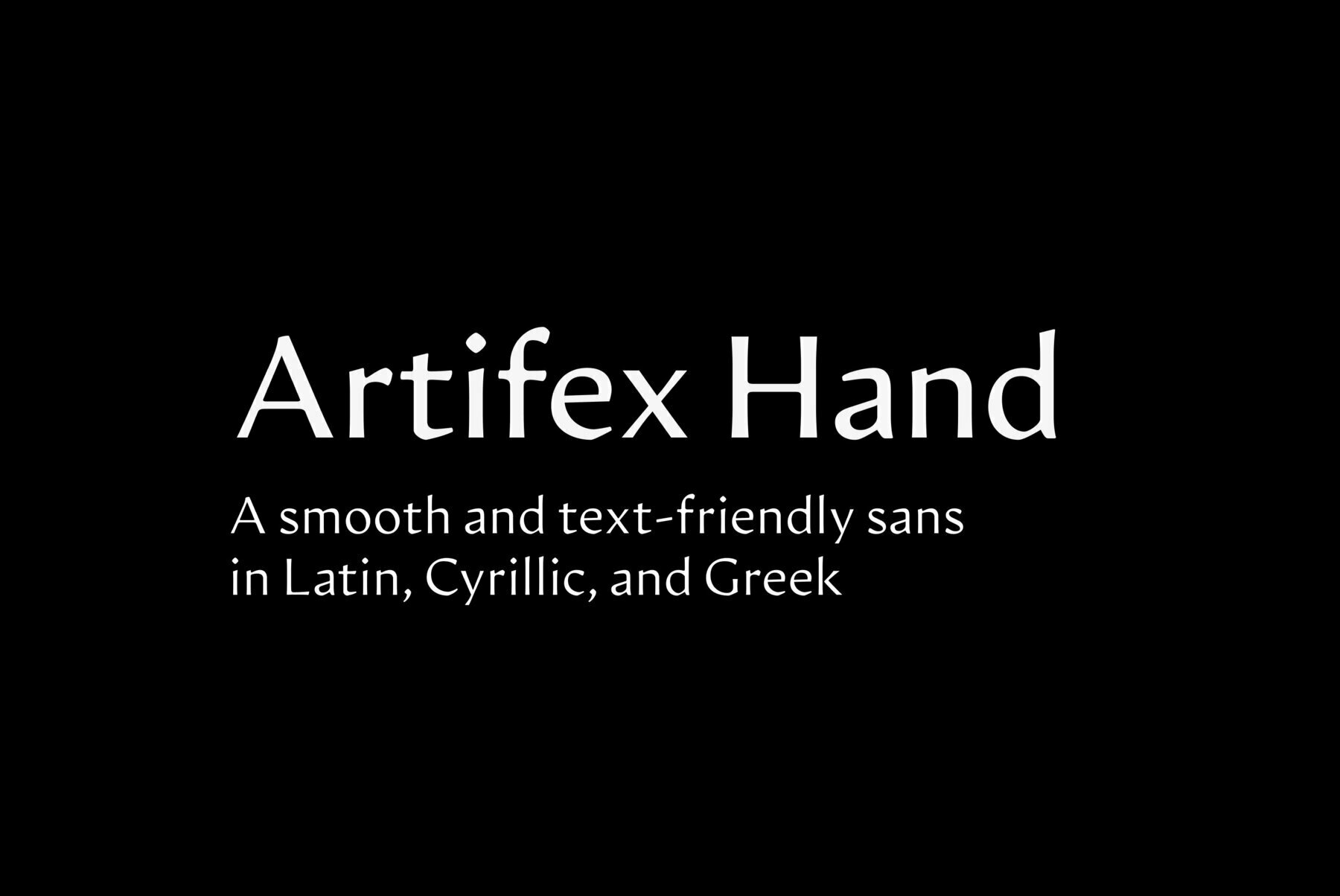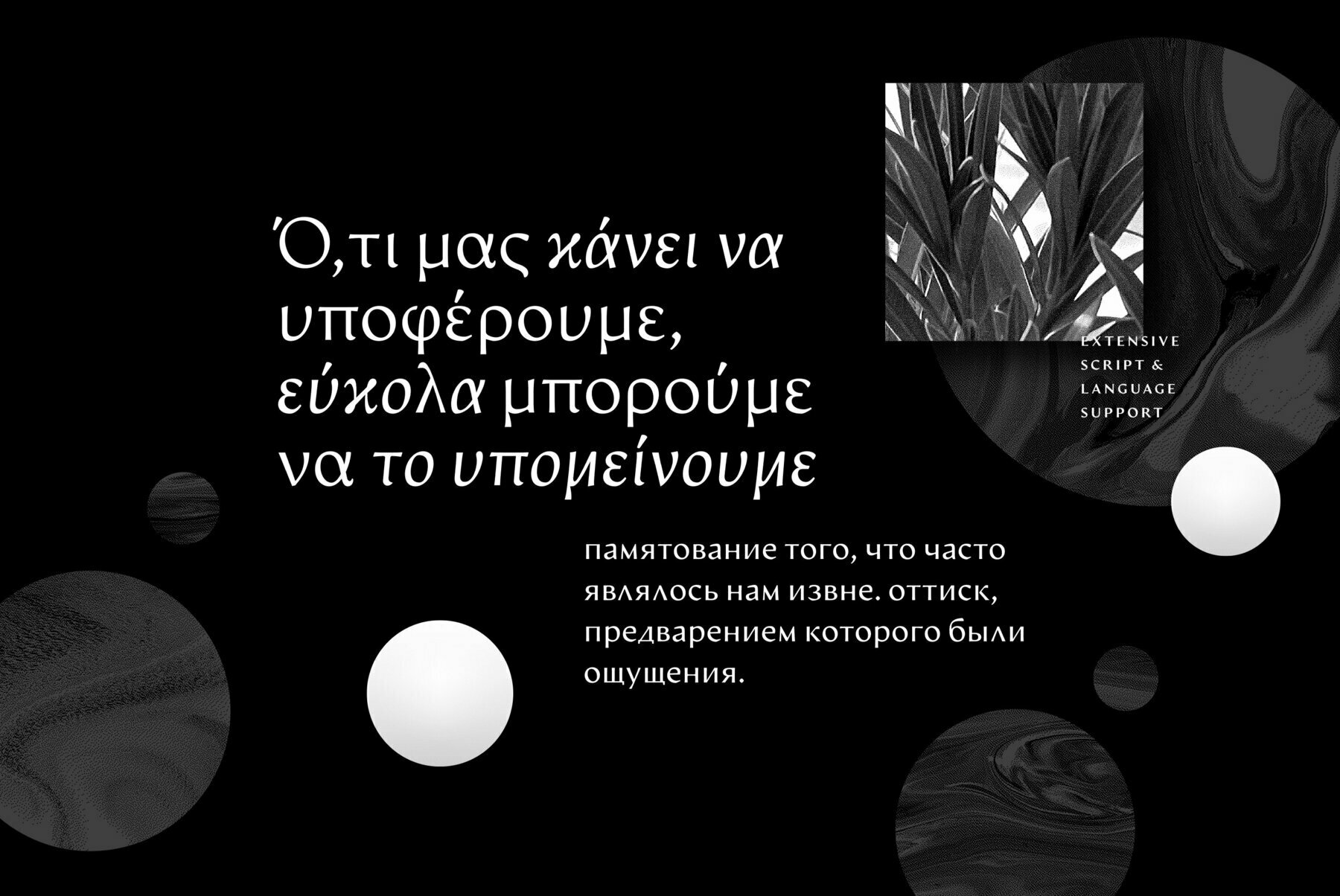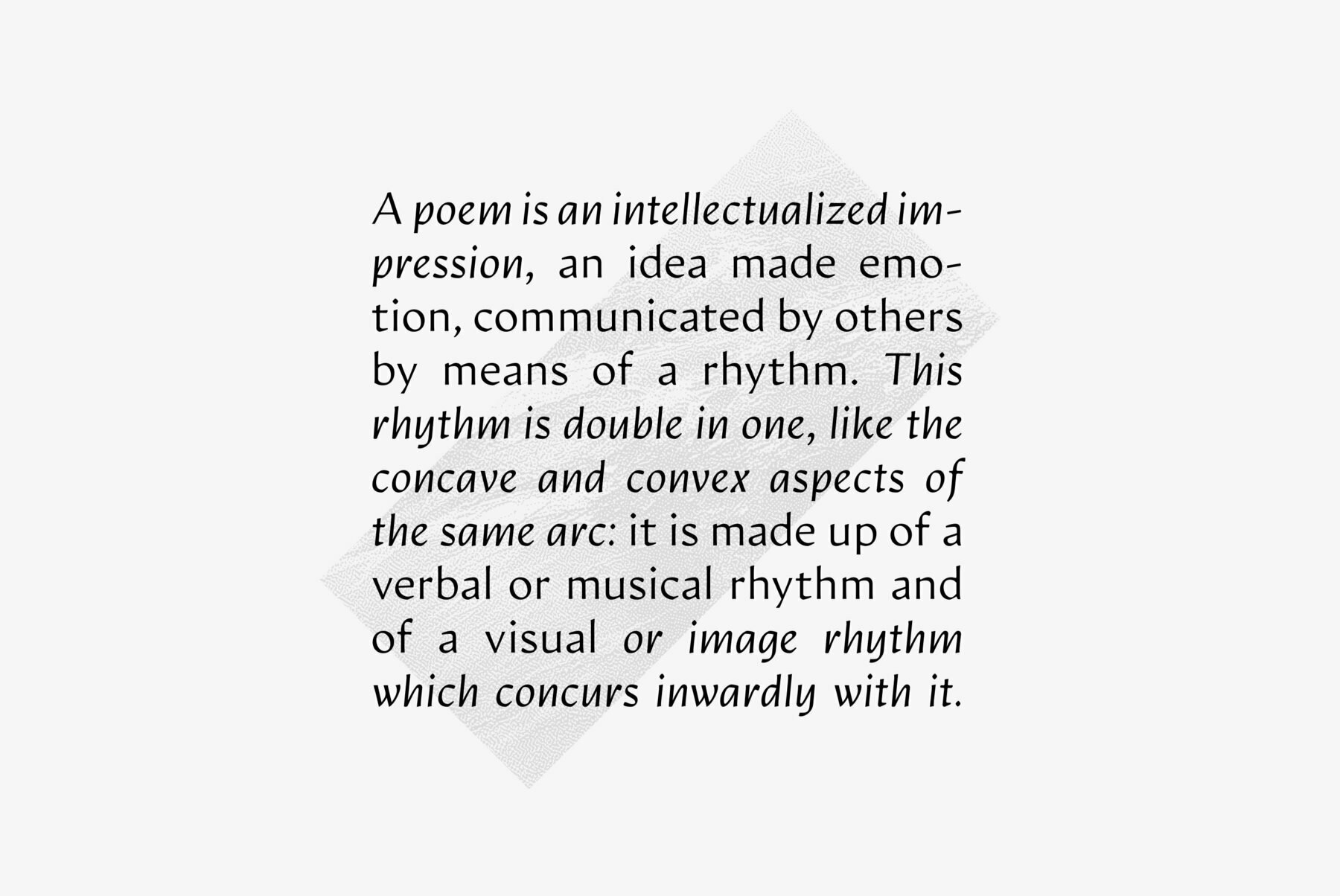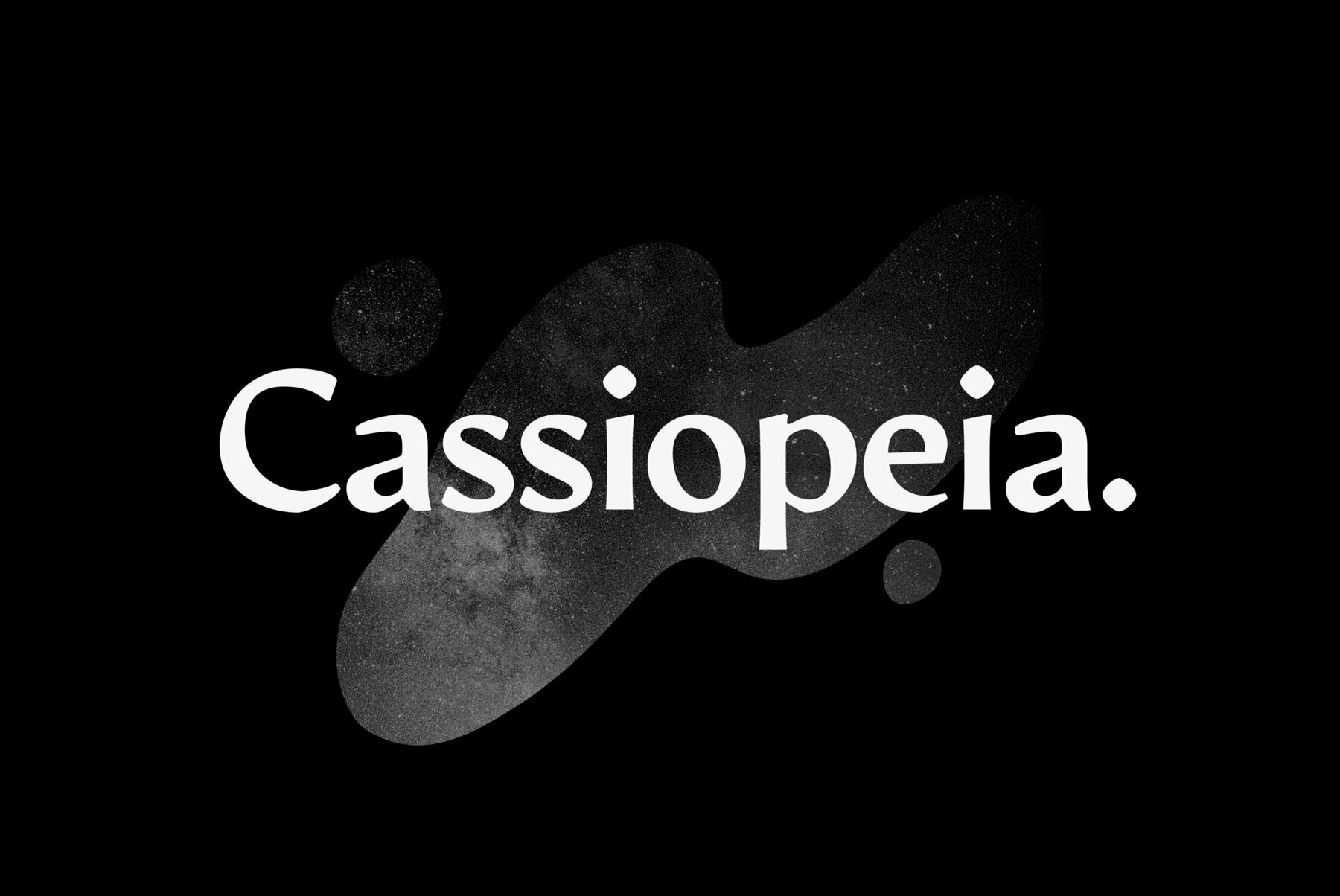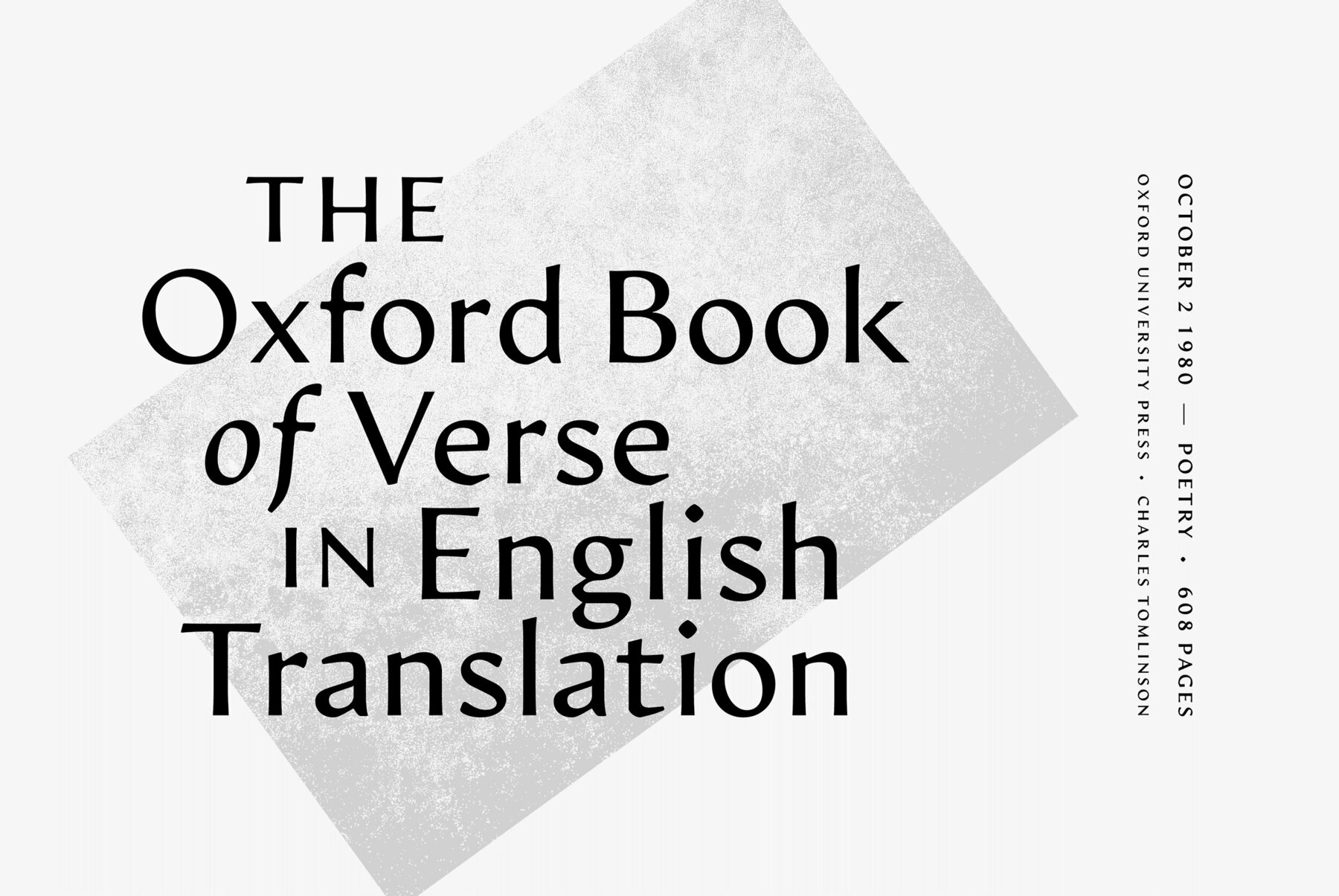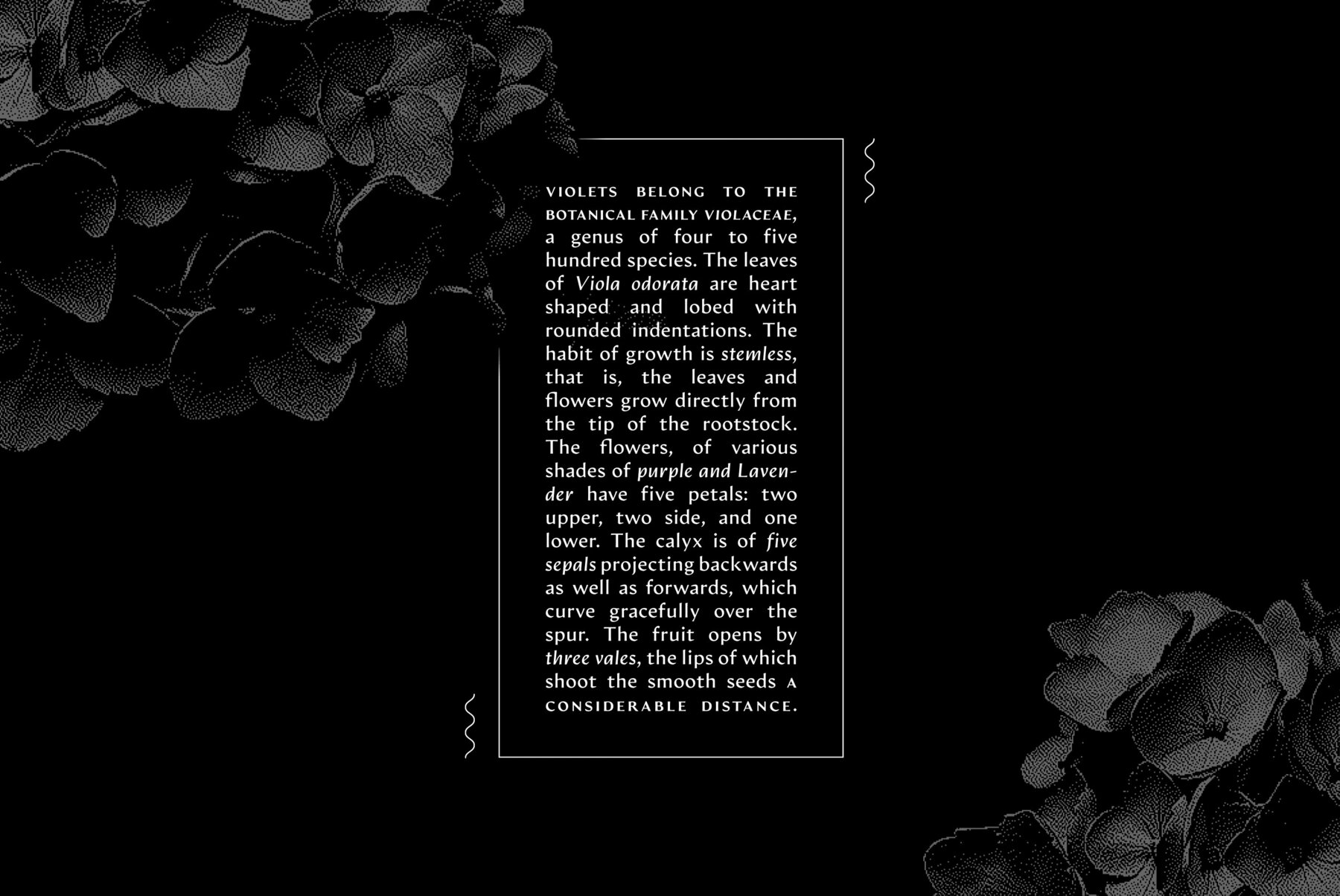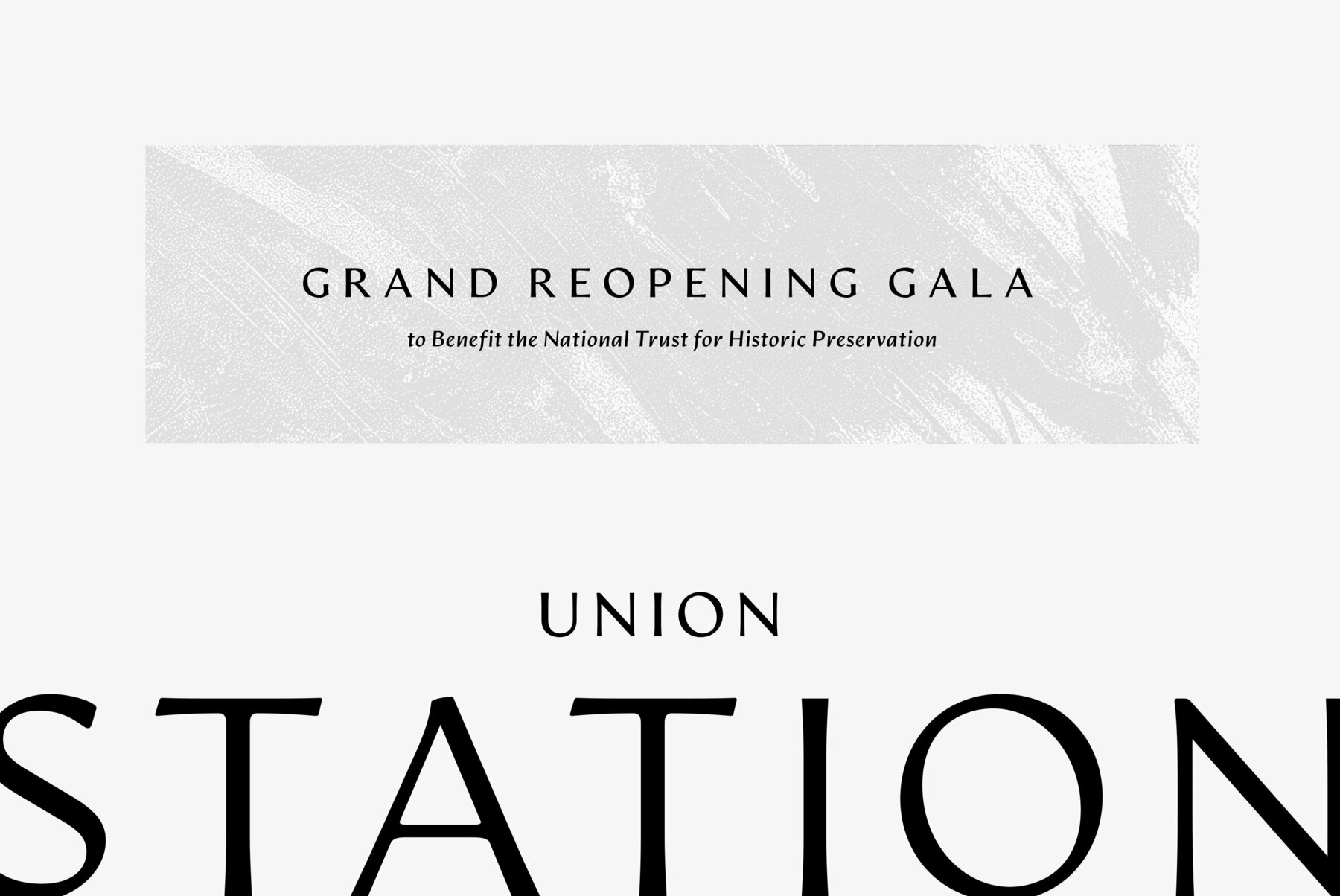
Artifex Hand CF Font
Artifex Hand is a humanist sans-serif cut of the original Artifex. Designed for flowing, easy-to-read text in Latin, Cyrillic, and Greek scripts. Soft details and moderate contrast let Artifex Hand excel in text and display settings.
- Eight weights and true italics
- Latin, Cyrillic, and Greek scripts
- Wide language support, including Russian, Greek, Vietnamese and many more
- International Phonetic Alphabet glyphs included
- Latin-script transliteration for Sanskrit, Arabic ALA-LC/DMG/ISO 233, and Pinyin
- OpenType features (fractions, alternates, ligatures)